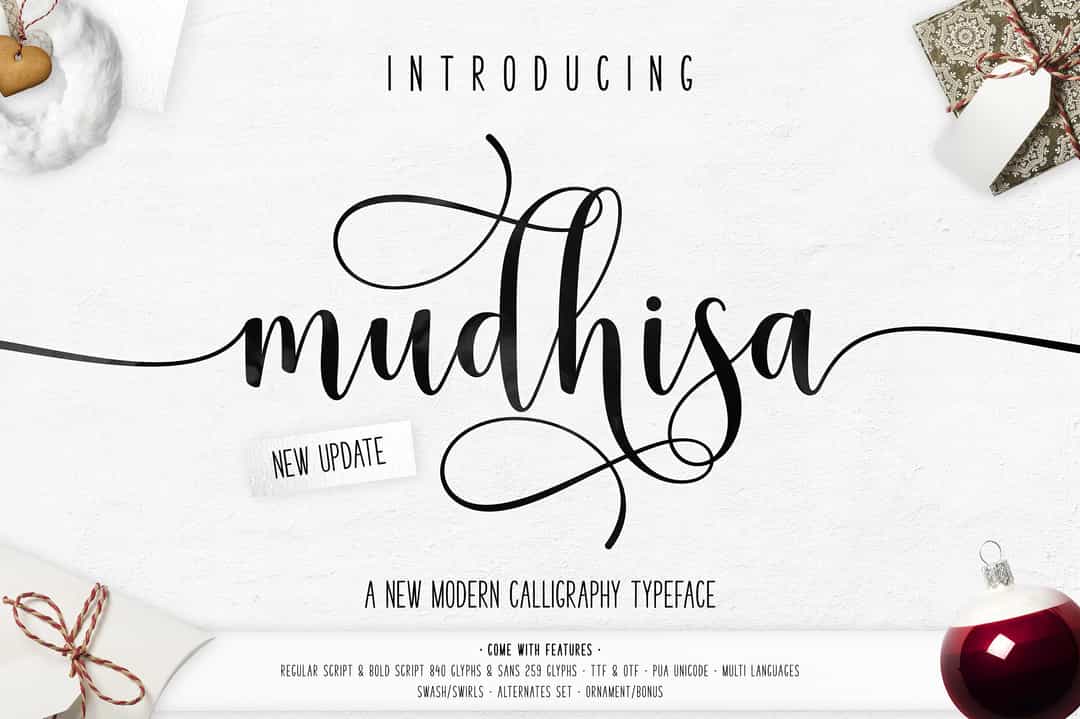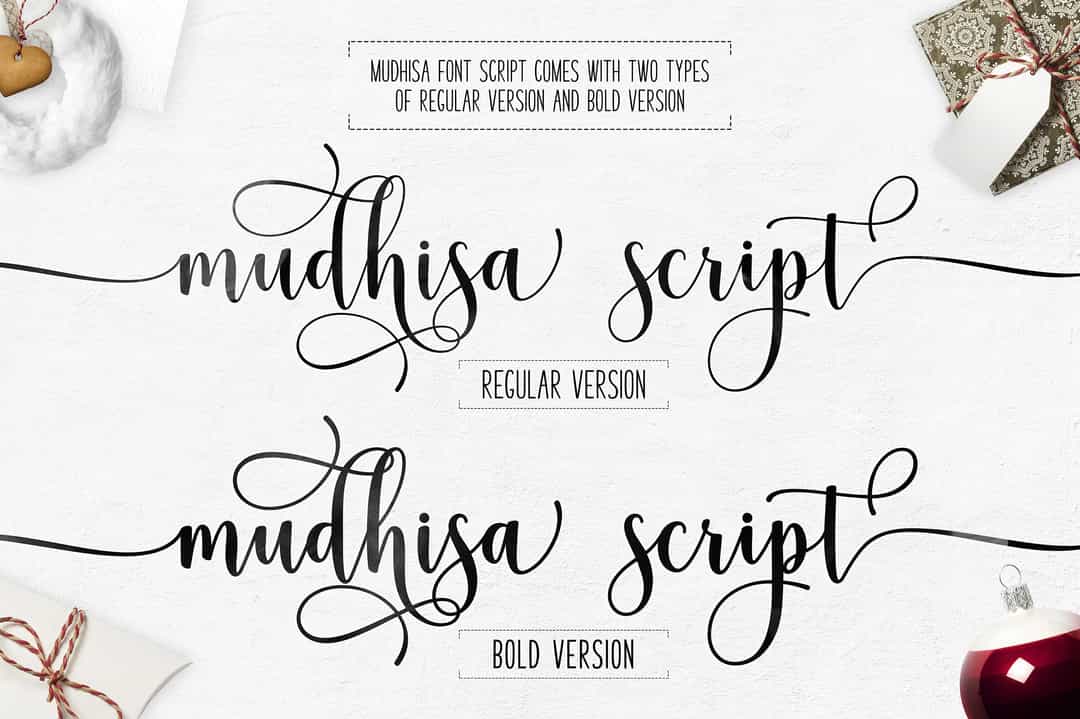
Mudhisa, Script Font, newly invented by me is the handwritten calligraphy with a modern shape of the hand-scratches. This font also has alternate characters to as much as 840 glyphs (Standard, Bold, and Standard Bold).